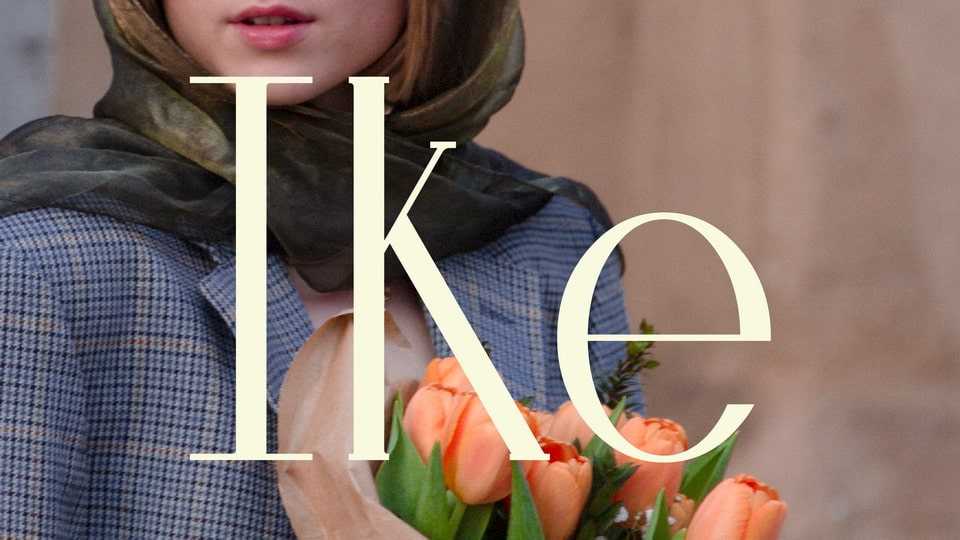
Download Ike font, a new serif typeface in a modern yet elegant style. Born from the Japanese concept of ‘Ikebana’, Ike is the perfect display font for a classy and sophisticated look.